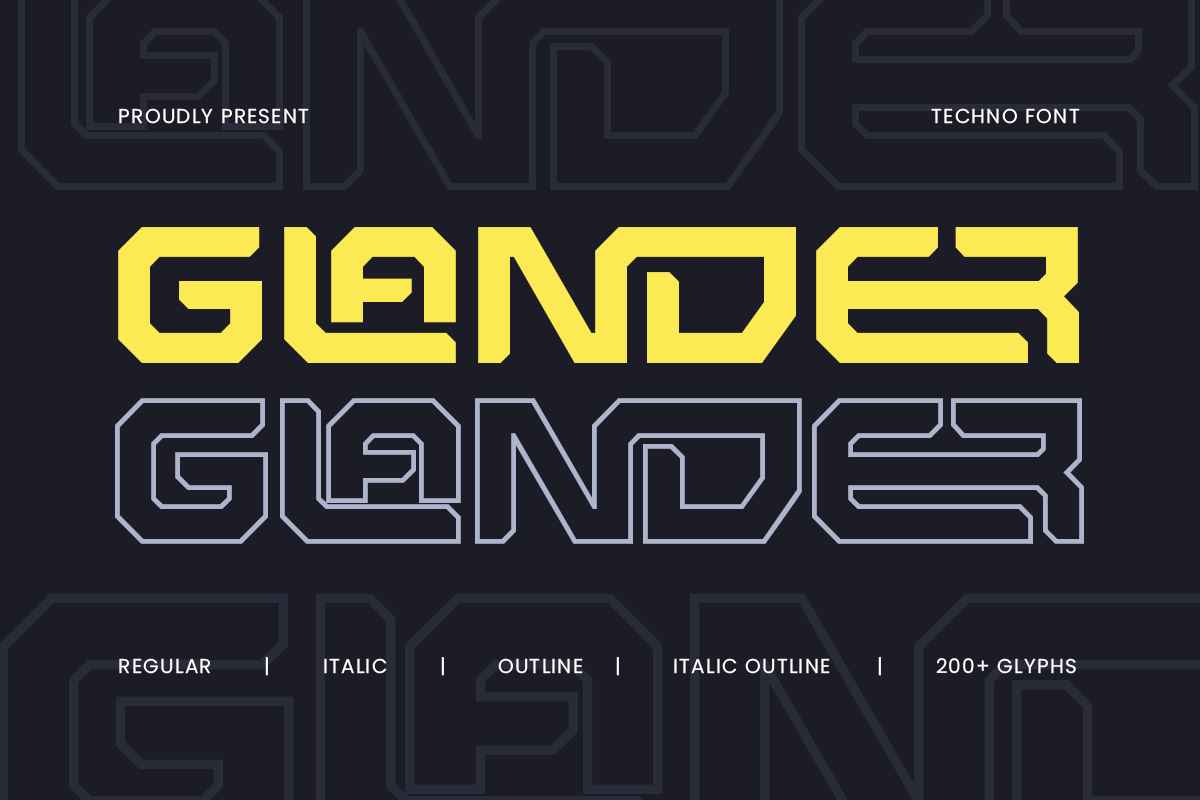
Glander
-Techno Font
Glander - Techno Font
Glander is a modern techno font designed to deliver a high-tech and futuristic aesthetic. With sharp lines, geometric precision, and a digital feel, this font is perfect for technology branding, esports, sci-fi posters, app interfaces, or any design that demands a modern and technical vibe.
Its strong structure makes it highly legible while maintaining a distinctive, forward-thinking style. Whether you're building a cyberpunk-inspired game, a digital agency logo, or UI/UX elements, Glander font adds energy and modernism to every element.
Step into the future of design with Glander — a techno font that combines function with futuristic flair.
Glander Techno Font Features:
• Bold Techno Display Style
• Available 4 Styles: Regular, Outline, Italic, Outline Italic
• Ideal for Gaming, Technology, Branding & UI